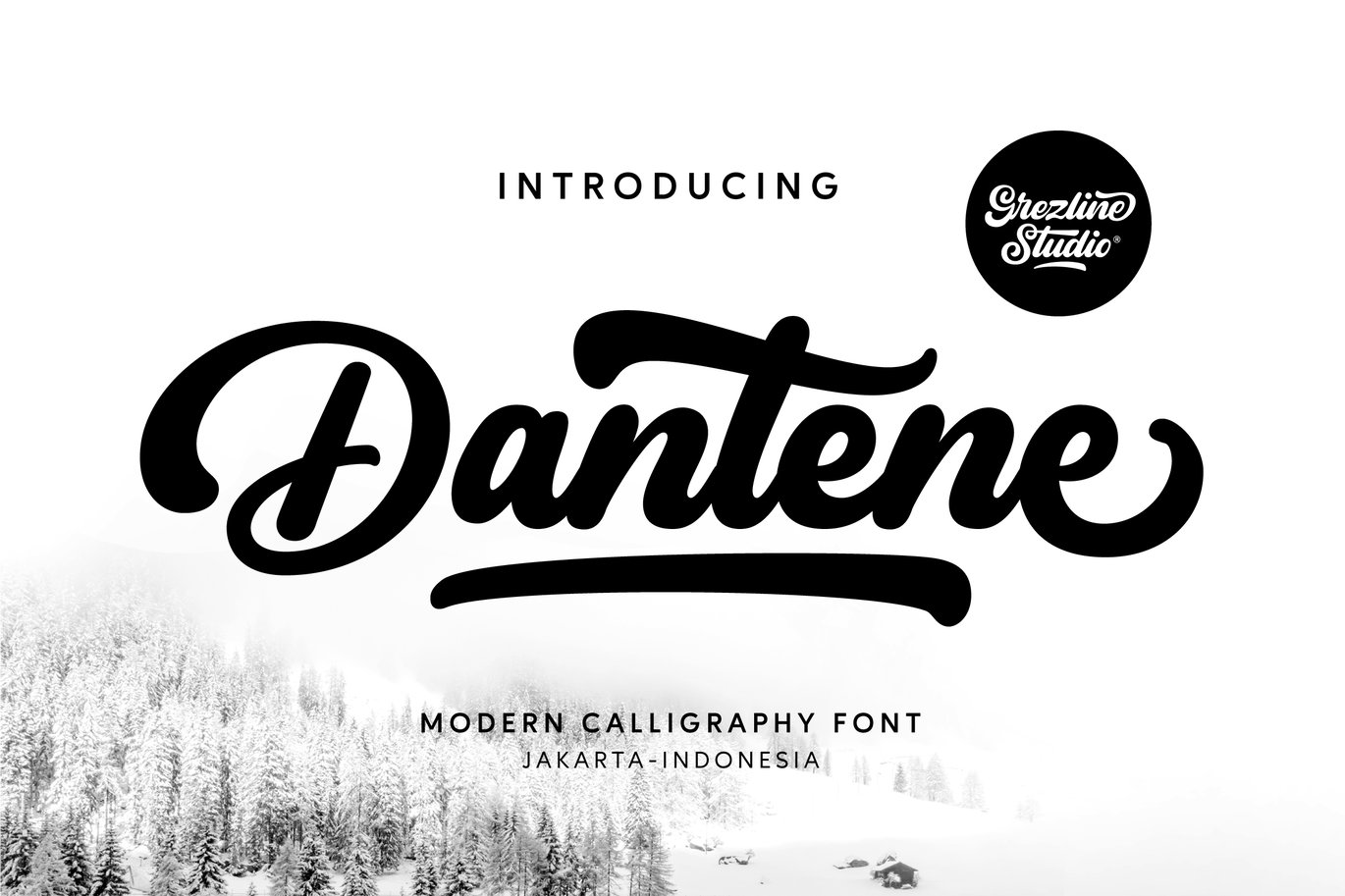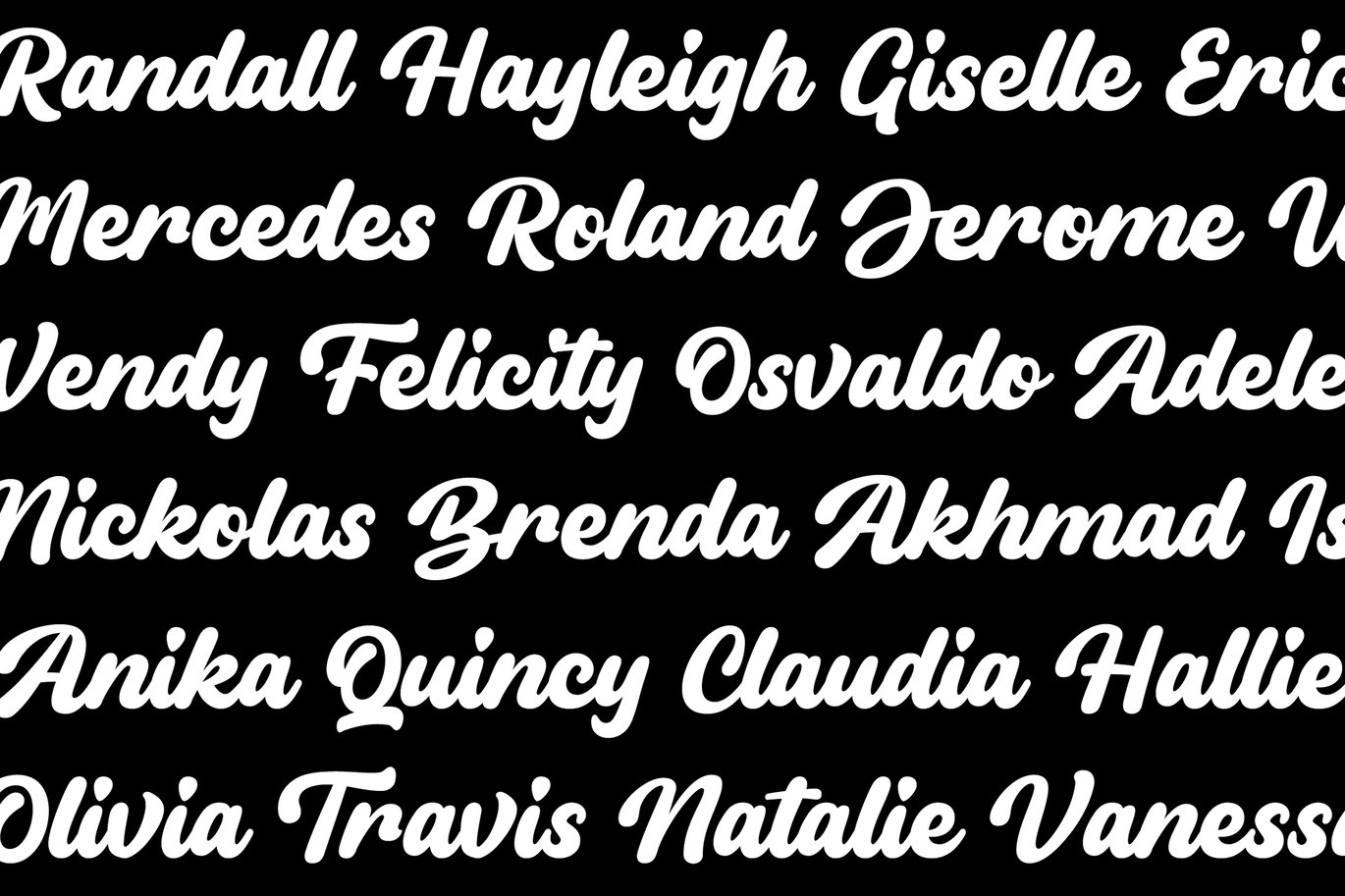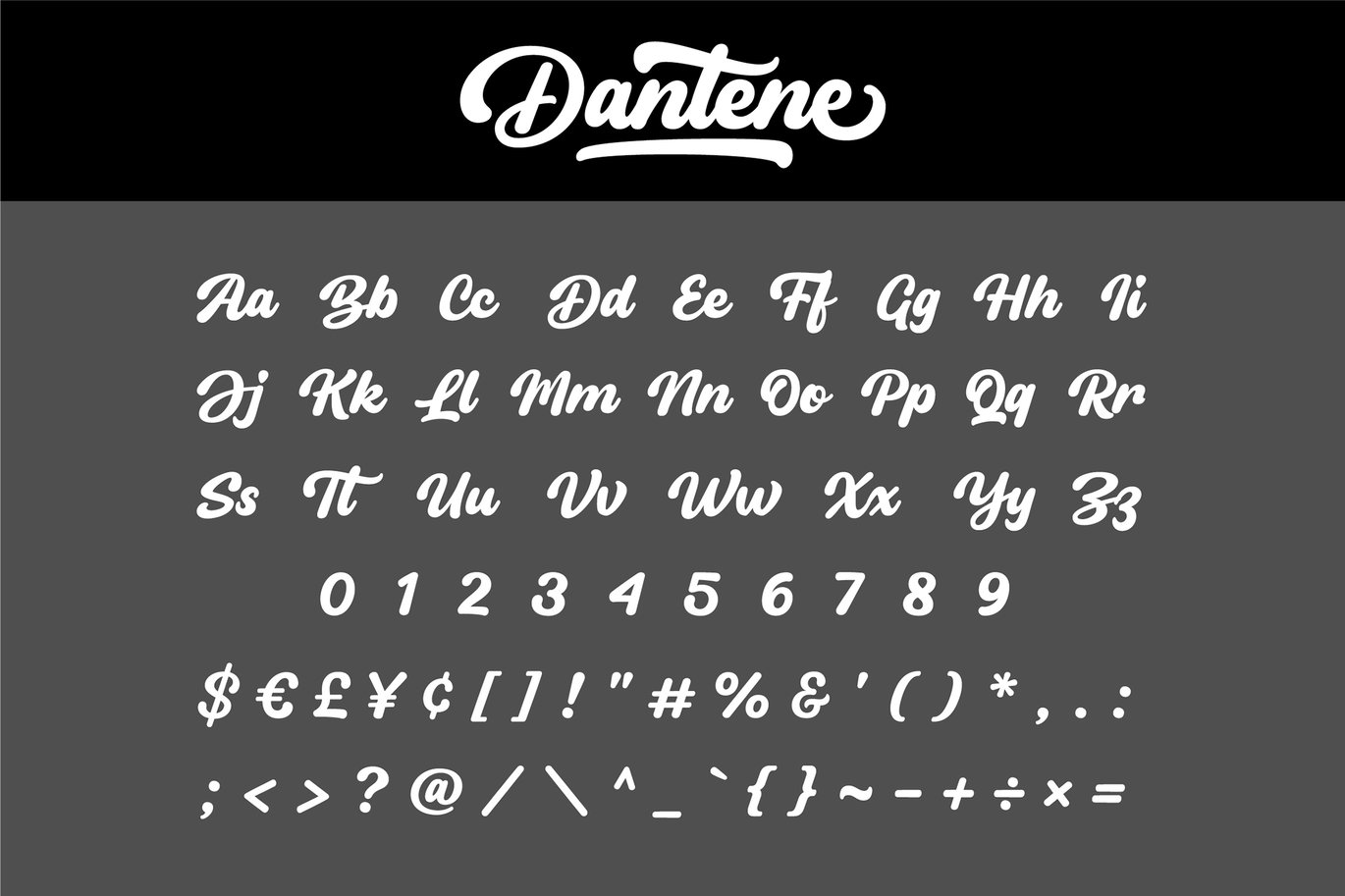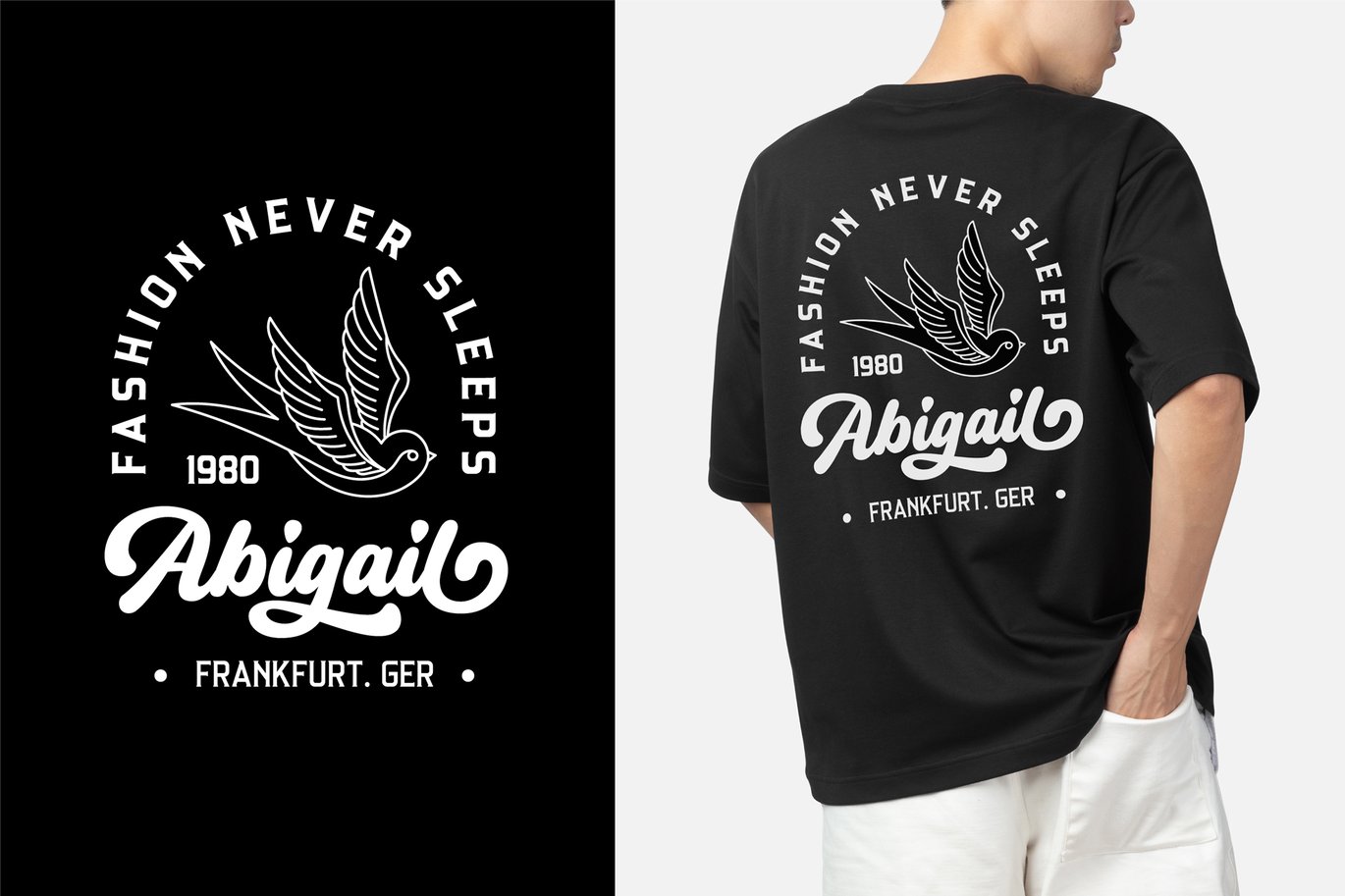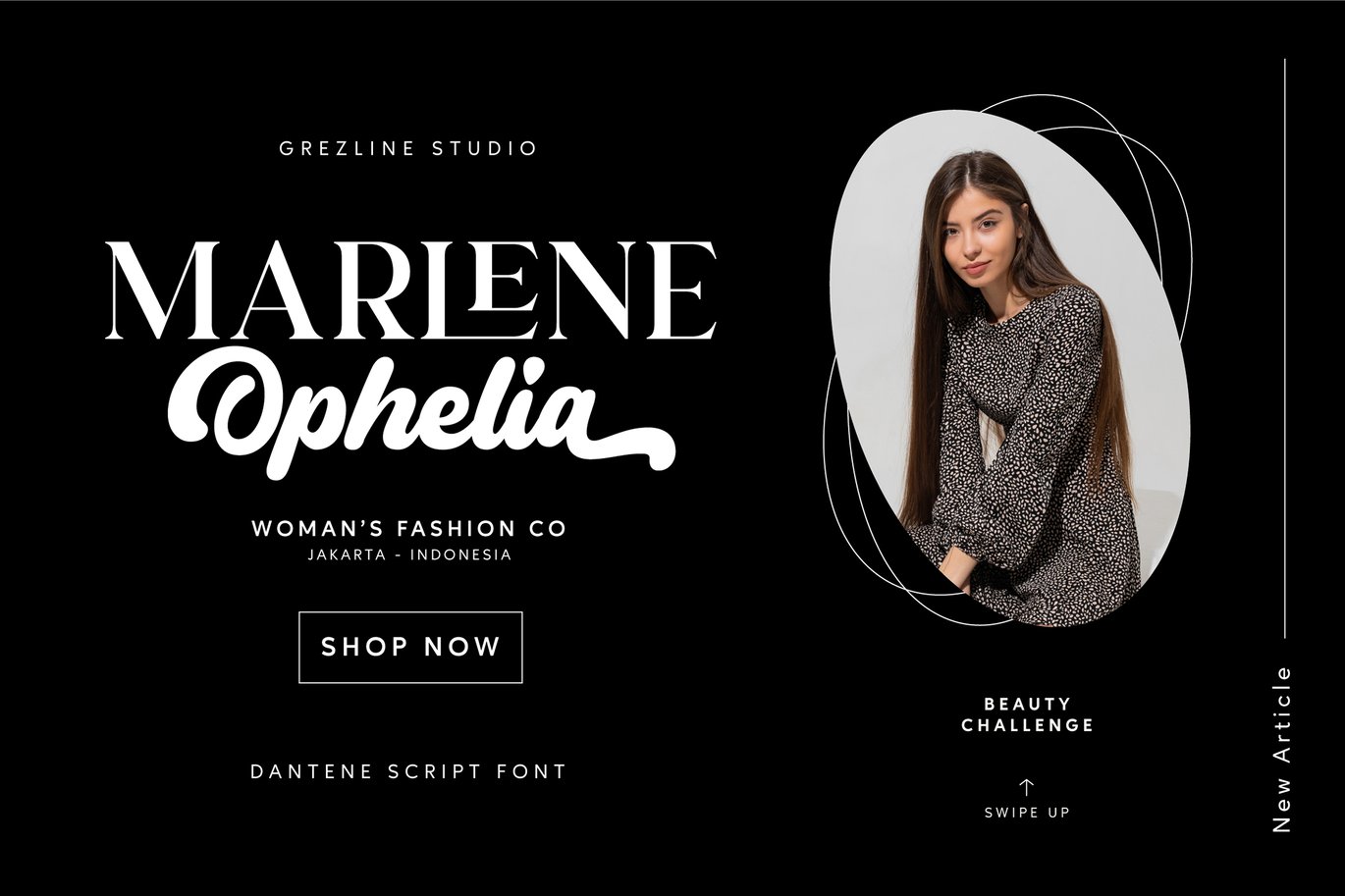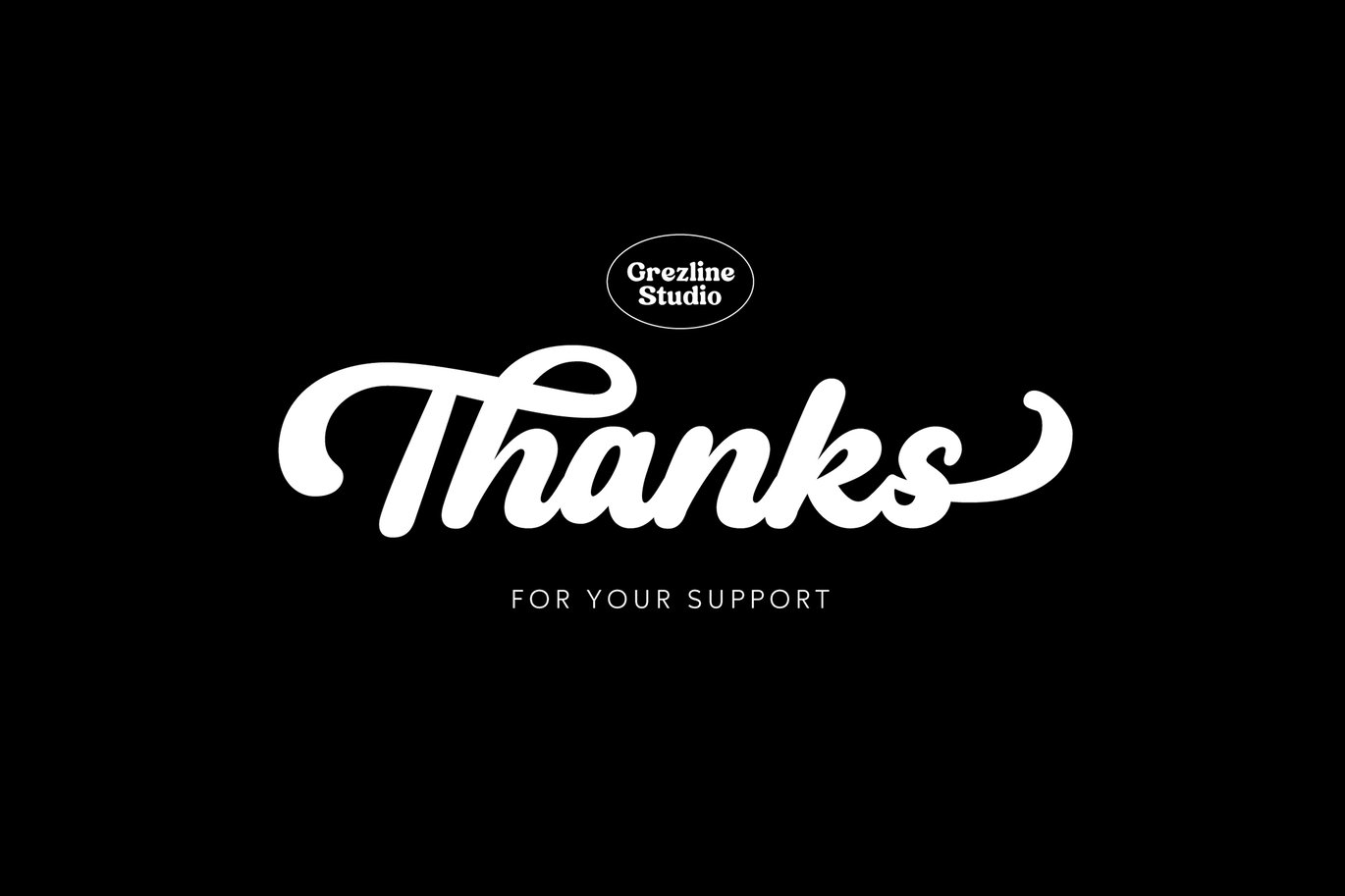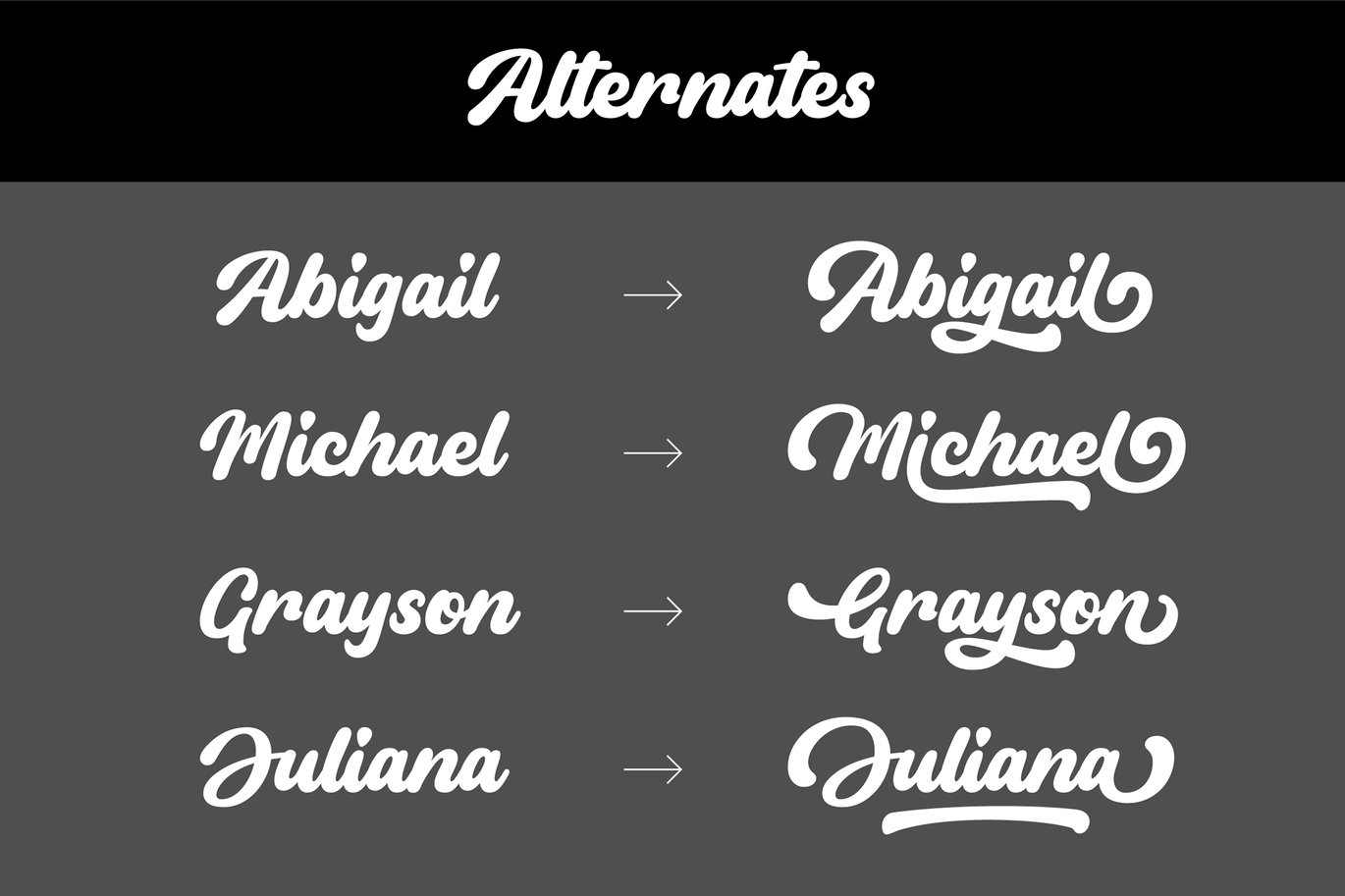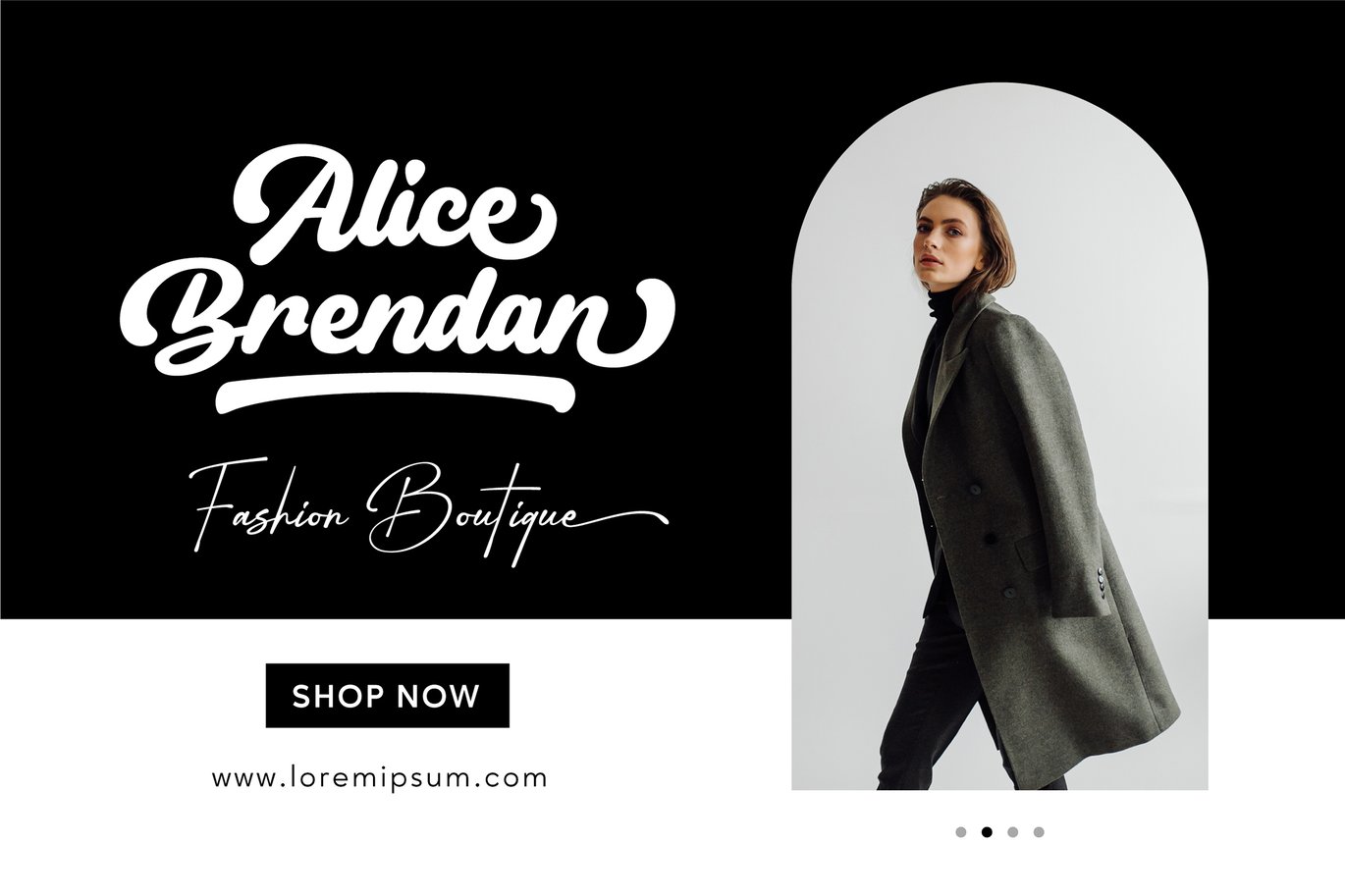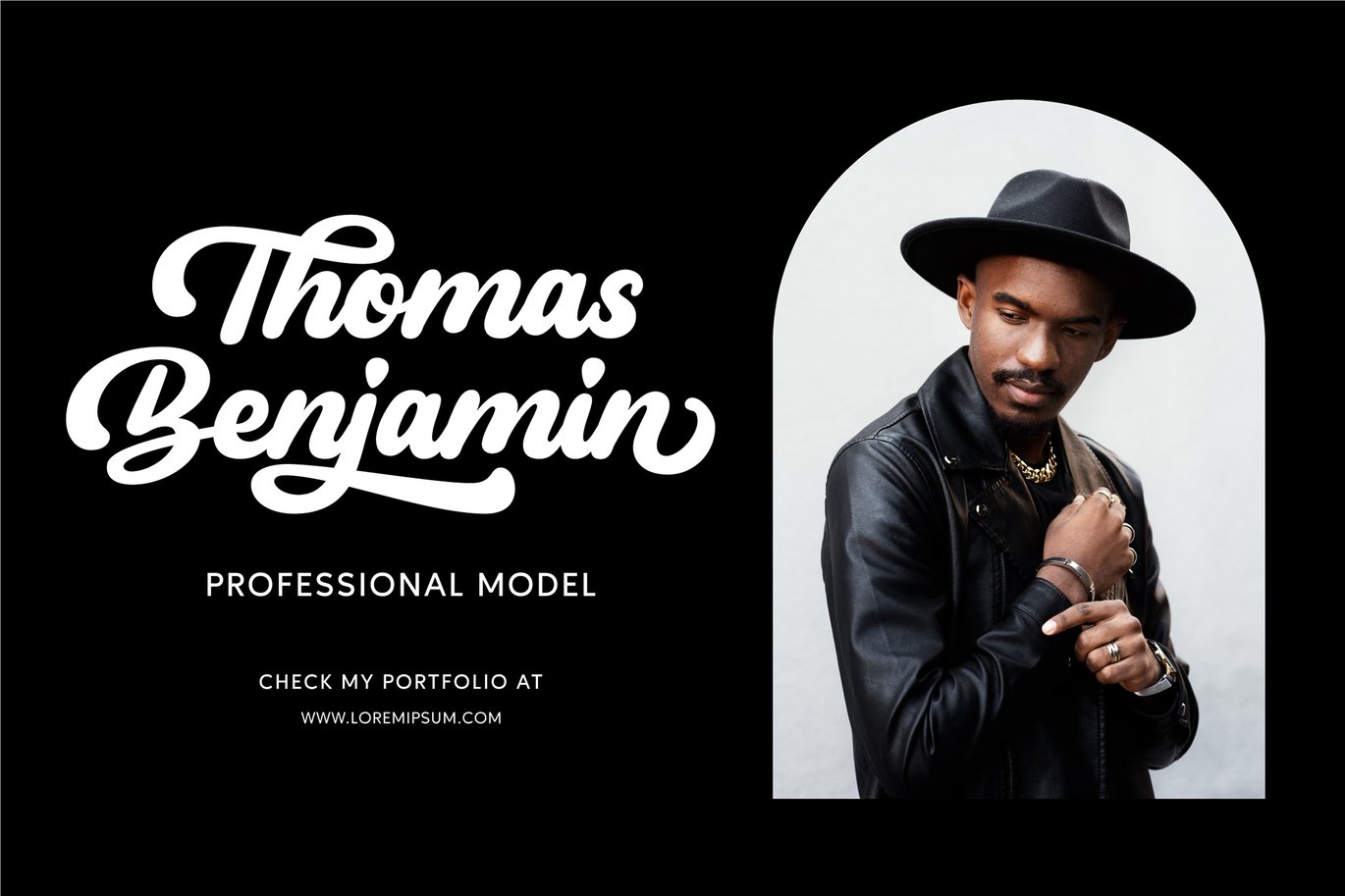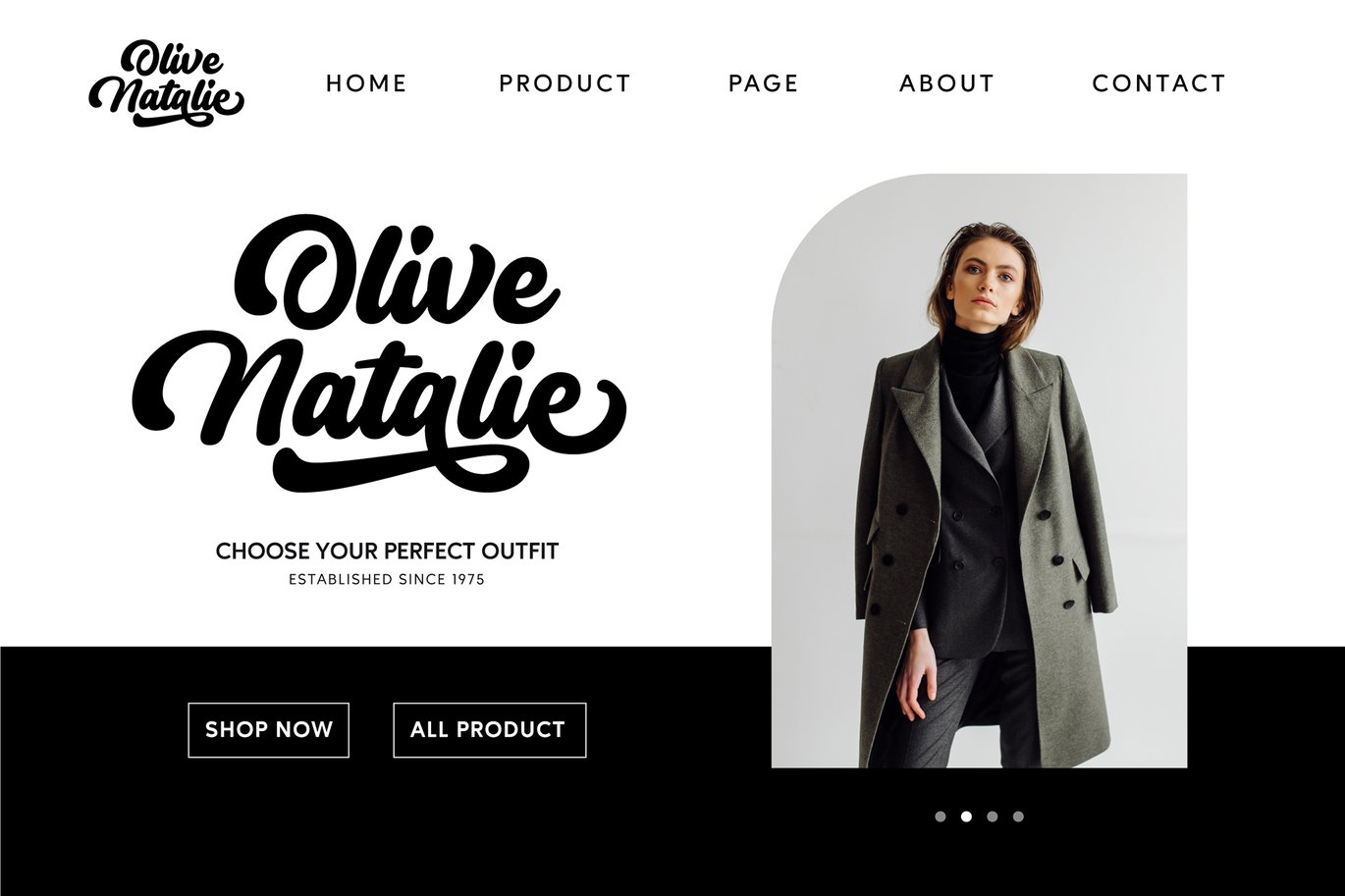
Dantene – Modern Calligraphy Font
Hello world! I’m very excited to introduce you, my latest font creation called Dantene!
Dantene is a modern calligraphy script font that I crafted carefully.
It is a perfect use for logotype, typography design, product packaging, t-shirt design, label poster, headings, letterhead, signage, and anything that need modern taste.
You can also mix and pair it with other fonts to provide a unique and fresh looks to your design projects.
- Ligature & Alternate glyphs
- Multilingual Language